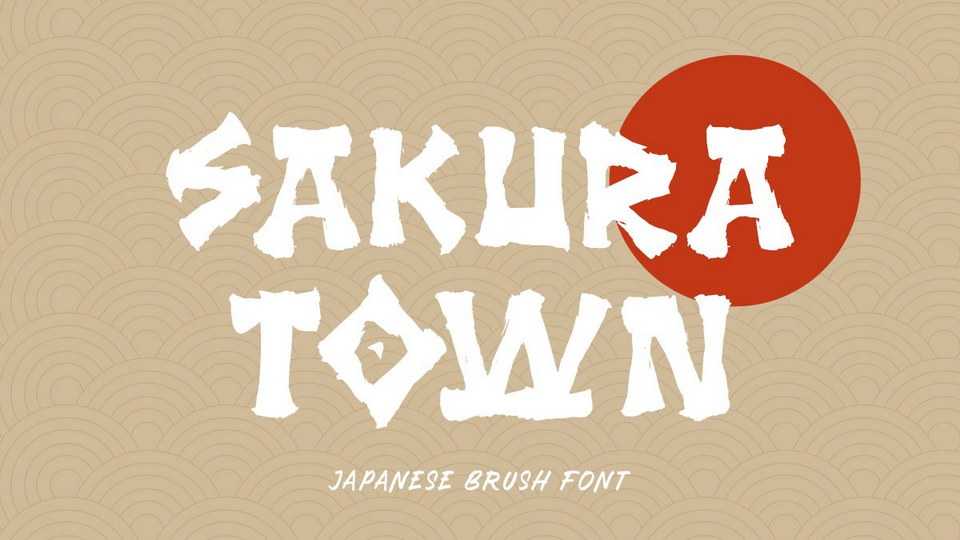
Download Sakura Town font, a hand painted brush typeface inspired by Japanese calligraphy. With its authentic look, Sakura Town is suitable for branding, logos, ads, clothing and more.